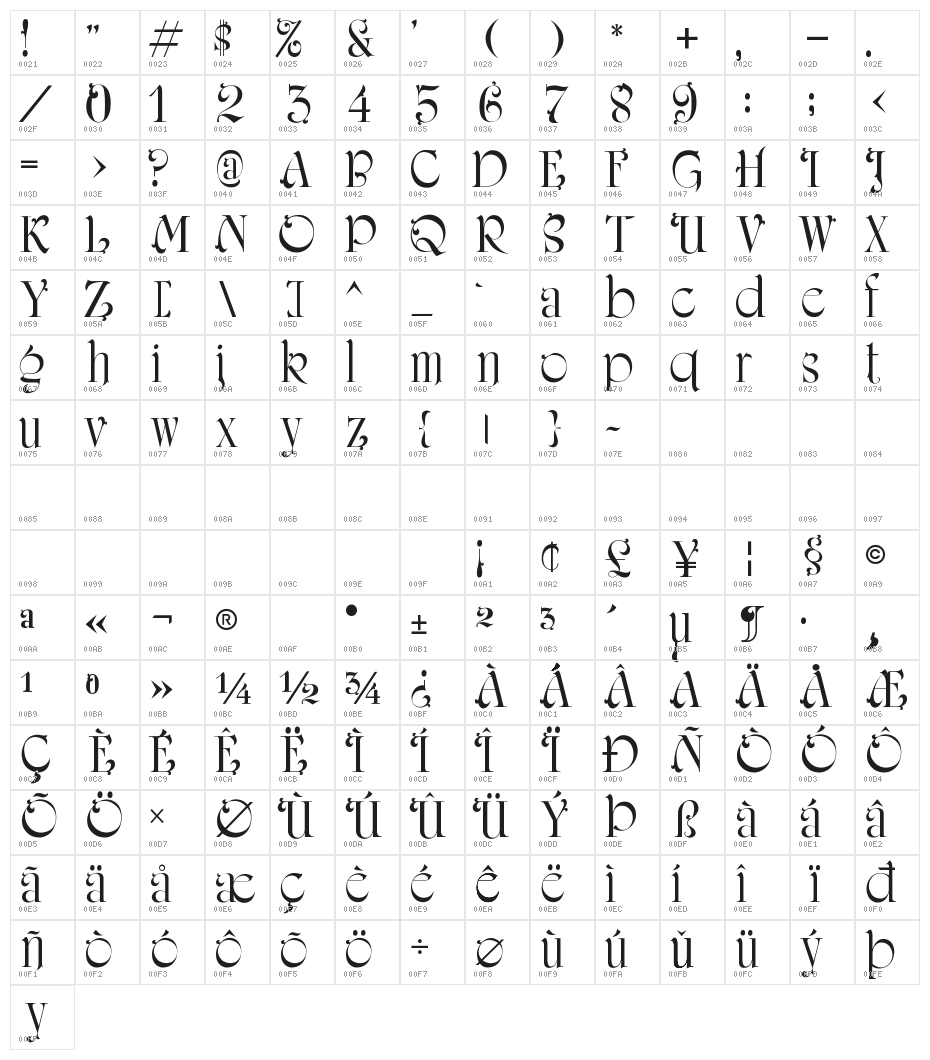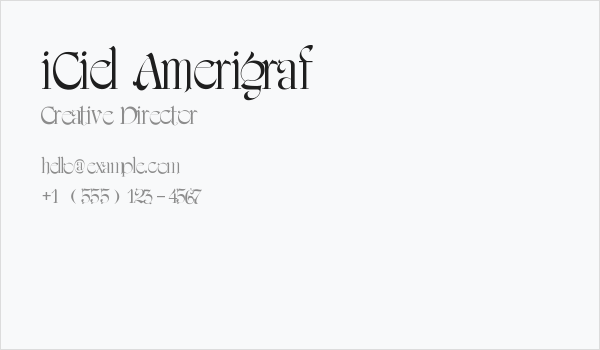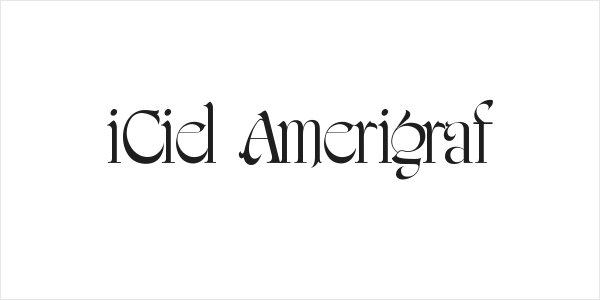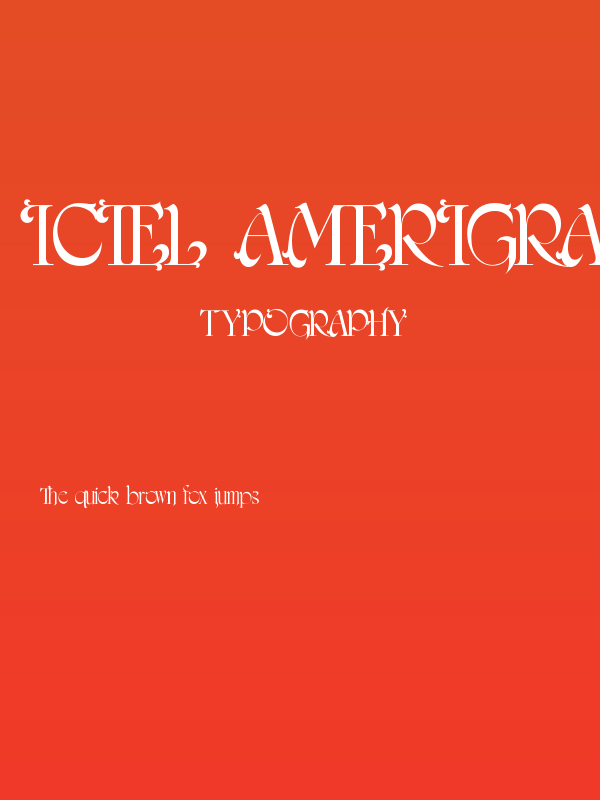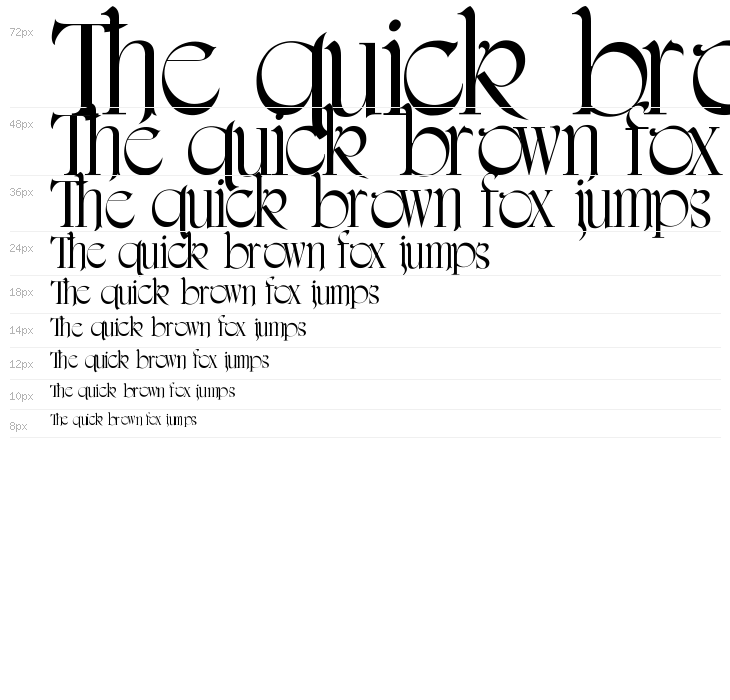
iCiel Amerigraf Font
iCiel Amerigraf Description
This font features a unique and artistic design with a decorative flair. The uppercase letters are characterized by bold, sweeping curves and intricate details that give them a distinct, ornamental appearance. The lowercase letters maintain a similar style, with elegant loops and flourishes that add to the overall aesthetic. The numbers are equally stylized, with a consistent theme of bold strokes and decorative elements. Special characters are designed to match the ornate style, making this font suitable for creative and eye-catching designs.
| Proposed Projects | Ideal for use in branding, invitations, posters, and any project requiring a decorative and artistic touch. |